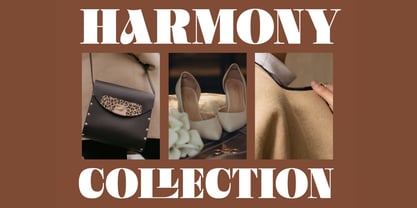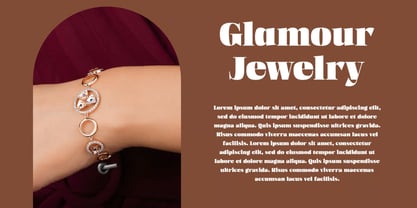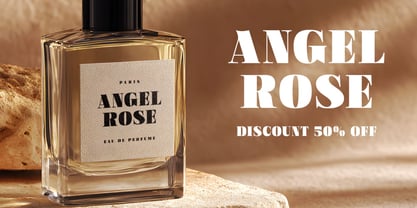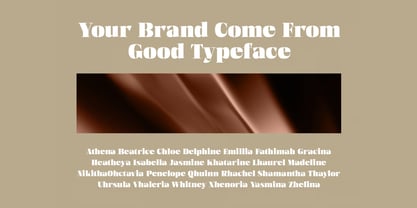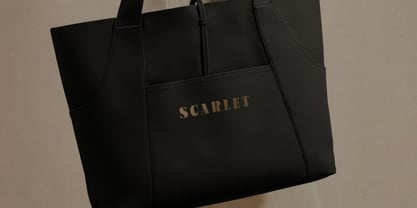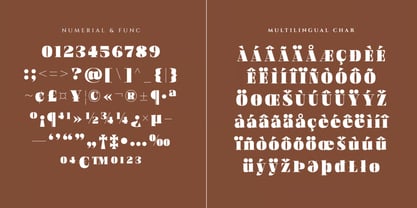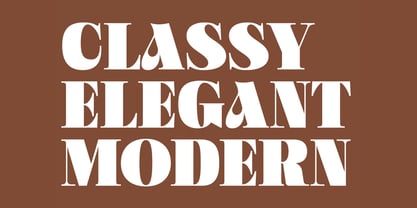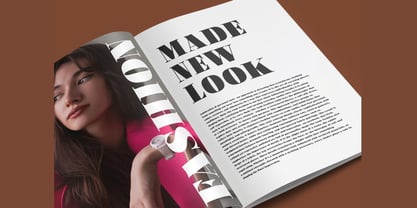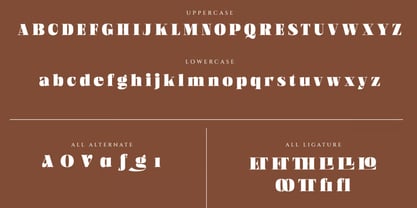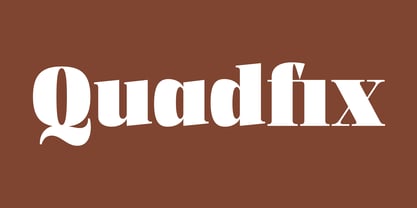
Quadfix
by Hasnat Studio
Quadfix is an elegant bold serif font where strength meets sophistication, combining confident typography with timeless charm. Designed to command attention while maintaining a graceful and refined presence, Quadfix blends bold strokes with sophisticated serif details to create a powerful yet luxurious visual identity.
Every letterform is carefully crafted with intention. Its thick, expressive strokes communicate strength, confidence, and stability, while refined serif details add a touch of elegance and finesse. This harmonious balance gives Quadfix a distinctive personality that stands out effortlessly without overwhelming your design.
Perfect for both modern and classic creative projects, Quadfix is an excellent choice for logos, branding, magazine covers, invitations, wedding designs, product packaging, advertisements, photography, social media graphics, and editorial typography. Whether used as a striking headline or a sophisticated brand mark, this bold serif typeface adds an elevated and professional finish to every composition.
Key Features:
• Elegant Bold Serif Design: Combines powerful strokes with refined serif details for a sophisticated appearance.
• Strong & Confident Letterforms: Bold typography designed to create an immediate visual impact.
• Luxury Aesthetic: Refined details give your designs a premium and high-end character.
• Timeless & Modern Style: Blends classic serif traditions with contemporary design aesthetics.
• Excellent Display Presence: Ideal for headlines, titles, logos, and other prominent typography.
• Versatile Character: Adaptable to branding, editorial, advertising, packaging, and lifestyle projects.
• Professional Typography: Designed to create polished and memorable visual compositions.
Perfect For:
• Logo & Branding Design: Create bold, sophisticated, and memorable brand identities.
• Fashion & Lifestyle Branding: Perfect for modern fashion labels, boutiques, and lifestyle businesses.
• Wedding Invitations: Add a luxurious and elegant touch to wedding stationery and event designs.
• Magazine & Editorial Design: Ideal for magazine covers, headlines, titles, and editorial layouts.
• Product Packaging: Enhance cosmetics, skincare, fashion products, boutique goods, and premium packaging.
• Advertising & Marketing: Create attention-grabbing promotional campaigns and advertisements.
• Social Media Graphics: Perfect for stylish posts, quotes, announcements, and branded content.
• Photography & Watermarks: Add a sophisticated typographic signature to photography projects.
• Corporate Branding: Bring confidence and professionalism to corporate identities and business materials.
• Special Events: Excellent for invitations, menus, signage, event branding, and promotional materials.
Elevate your typography with Quadfix—an elegant bold serif font where strength meets sophistication. With powerful strokes, refined serif details, and a timeless modern character, Quadfix is perfect for logos, branding, fashion, magazines, wedding stationery, packaging, advertising, photography, social media, corporate identity, and premium creative projects that demand confidence, elegance, and lasting visual impact.
Designers: Hasnat Khan
Foundry: Hasnat Studio
Hasnat Studio is an independent type foundry specializing in the development of high quality, contemporary typefaces that serve a wide range of design needs. With a focus on precision, readability, and stylistic innovation, the studio produces fonts that seamlessly integrate into modern branding, publishing, UI/UX, and multimedia environments. Hasnat Studio operates at the intersection of tradition and technology, combining the principles of classical typography with the flexibility of modern digital tools. The studio emphasizes multilingual and cross cultural compatibility, ensuring its typefaces are globally accessible and adaptable. Through a commitment to craftsmanship, consistency, and functional design, Hasnat Studio delivers reliable typographic solutions for professionals across creative industries.